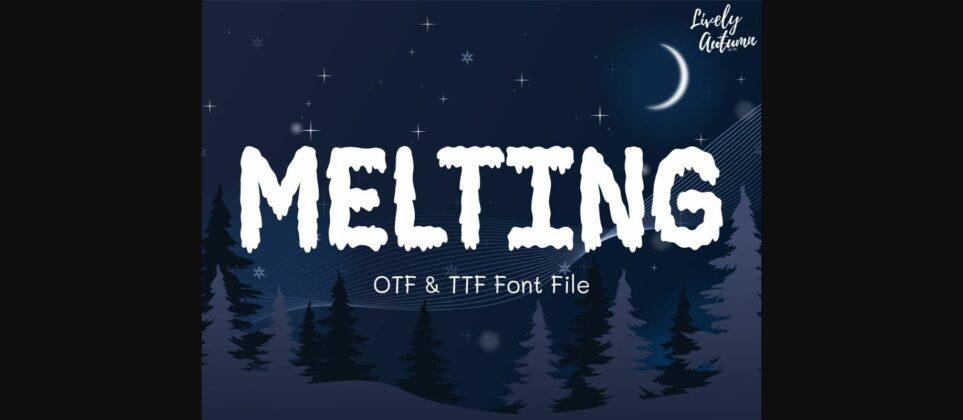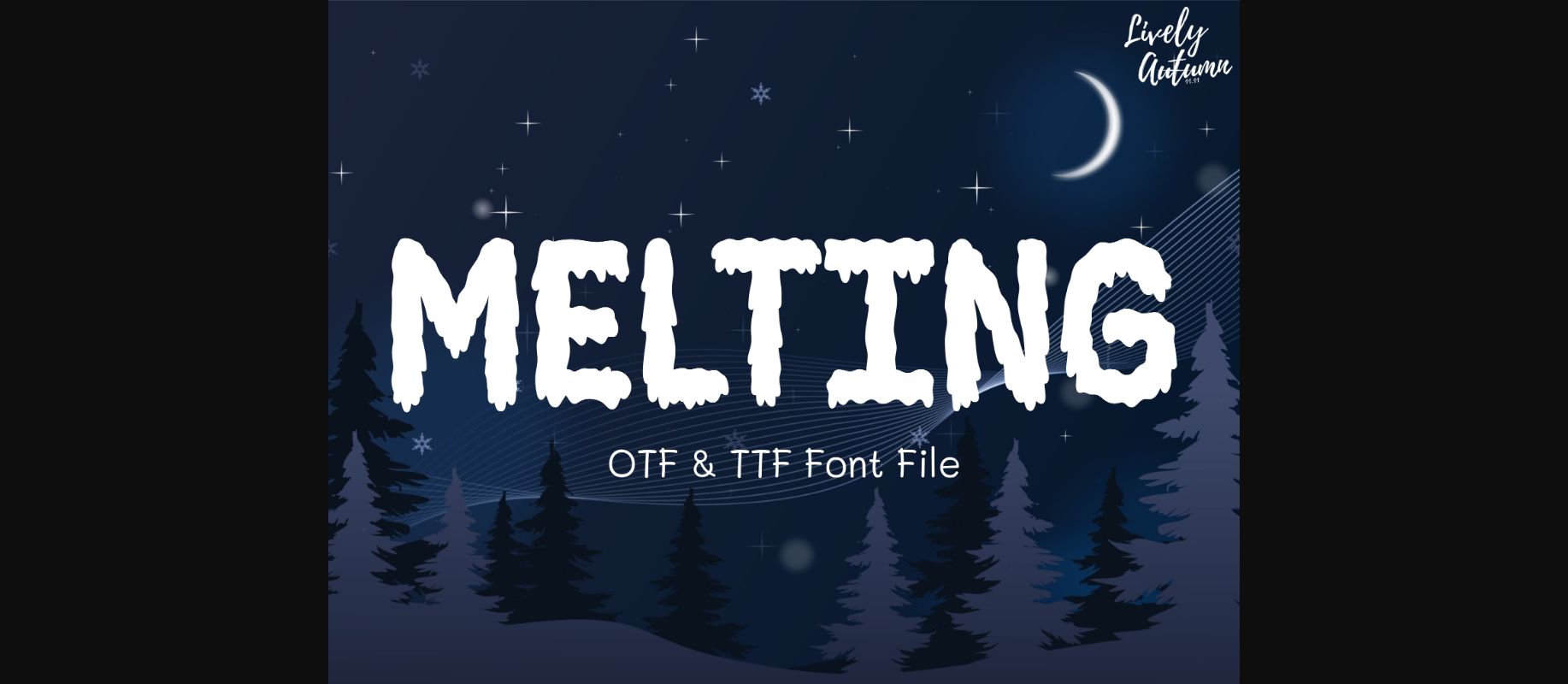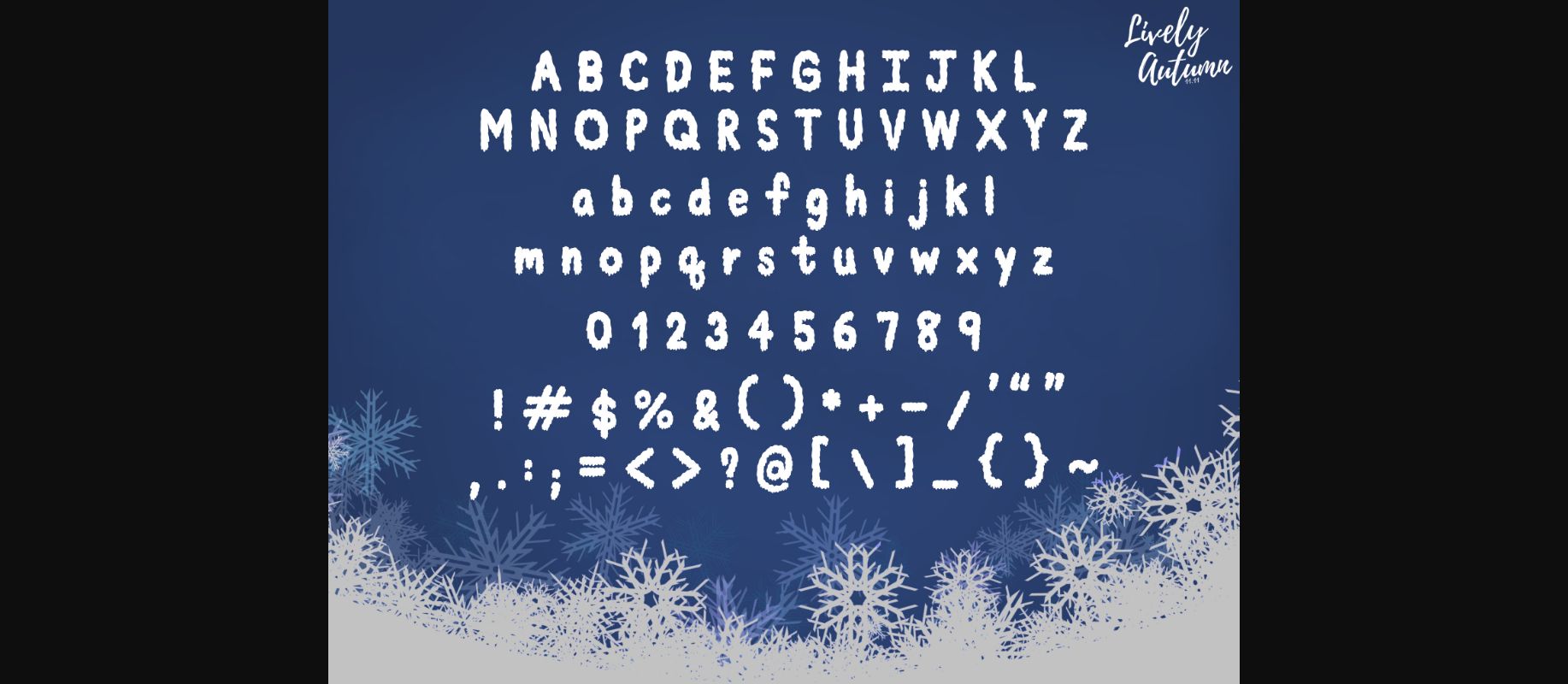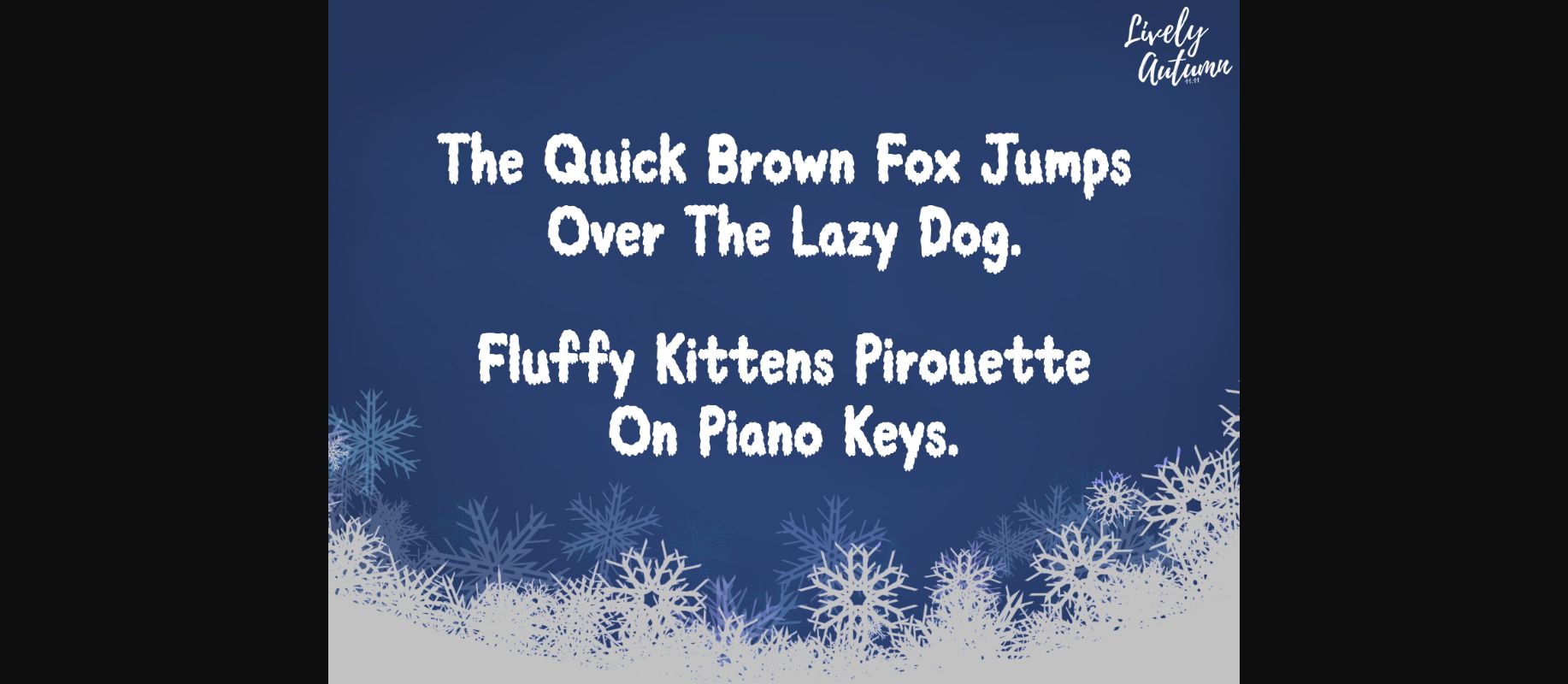
About Melting Font
Melting Font is a fancy decorative font. The Metling font is designed with a melting shape on every letter, making it perfect for your winter and Christmas-themed projects. From invitations to posters, social media graphics, and more.